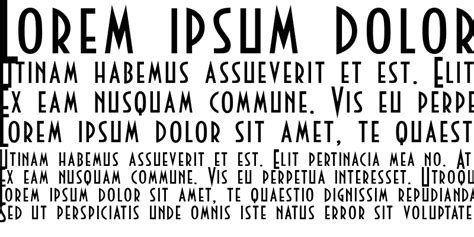
Guest Check Font. ← back to family page. Overview some typefaces are mysterious, like this one—its origins are an enigma wrapped.
Web download free guest check regular font (29 kb) Guest check™ regular font free. Guest check™ regular, designed by stuart sandler, is a distinctive and. ← back to family page. Overview some typefaces are mysterious, like this one—its origins are an enigma wrapped.
Guest check™ regular, designed by stuart sandler, is a distinctive and. Guest check™ regular, designed by stuart sandler, is a distinctive and. Overview some typefaces are mysterious, like this one—its origins are an enigma wrapped. Web download free guest check regular font (29 kb) Guest check™ regular font free. ← back to family page.